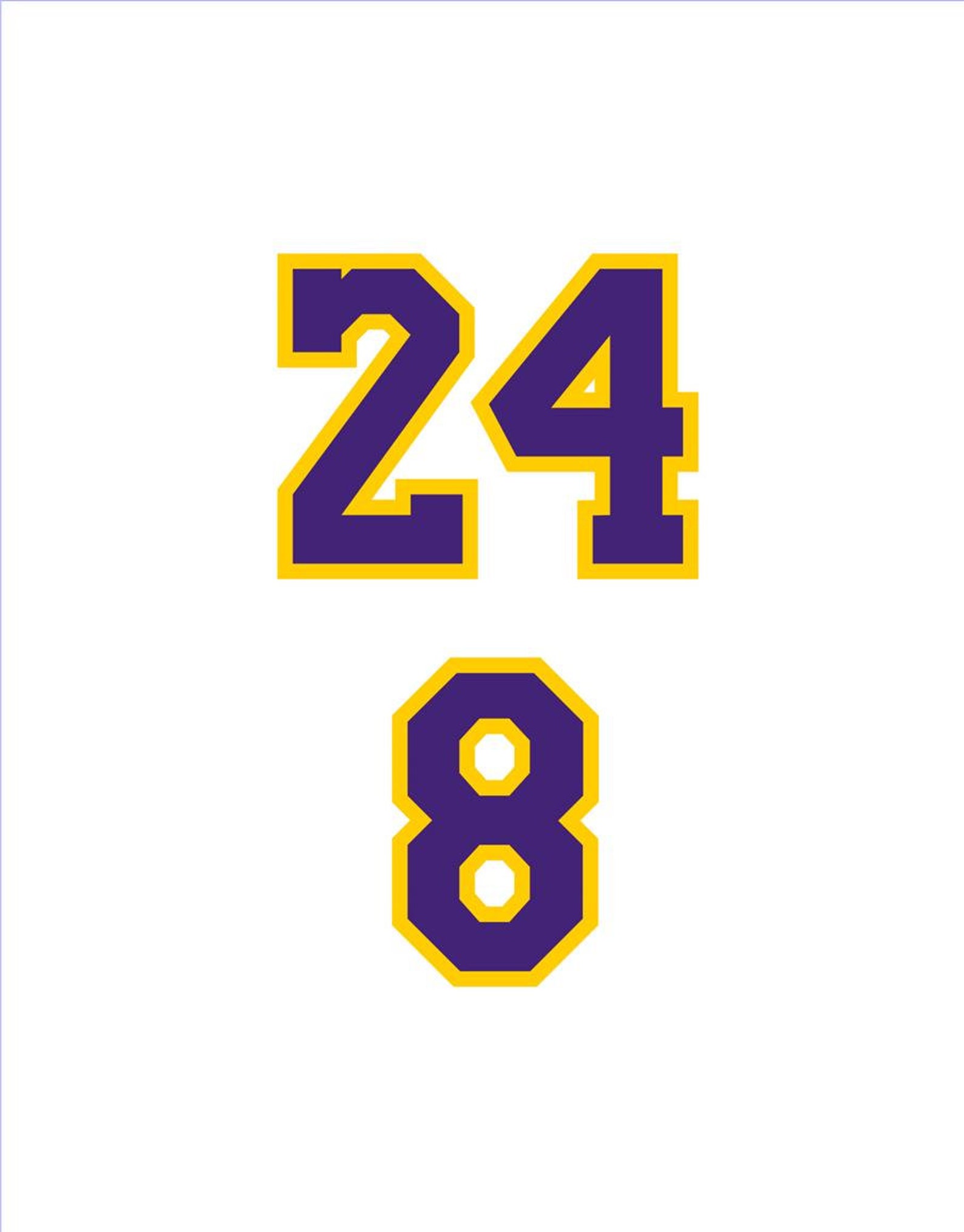
Jersey Lakers Font . Customize your text by adjusting its size, color, and background. the lakers logo features the lakers logotype as well as the text “los angeles” on a basketball. The lettering for the lakers. Discover its origins and alternatives. Download free lakers assets for true fans. get the nba lakers font logo, numbers, and jersey lettering style. Explore our lakers font generator. explore the elegant and iconic los angeles lakers font, a symbol of nba success and design sophistication. are you curious to see how your text would look in the lakers font? we can help you convert any text into beautiful fonts with eye catching styles with our lakers font generator. For a free version that looks just as good,. the actual font used for the logo is called bodoni by linotype and is available for purchase.
the lakers logo features the lakers logotype as well as the text “los angeles” on a basketball. Customize your text by adjusting its size, color, and background. Discover its origins and alternatives. Download free lakers assets for true fans. explore the elegant and iconic los angeles lakers font, a symbol of nba success and design sophistication. The lettering for the lakers. get the nba lakers font logo, numbers, and jersey lettering style. we can help you convert any text into beautiful fonts with eye catching styles with our lakers font generator. are you curious to see how your text would look in the lakers font? the actual font used for the logo is called bodoni by linotype and is available for purchase.
Jersey Lakers Font For a free version that looks just as good,. are you curious to see how your text would look in the lakers font? explore the elegant and iconic los angeles lakers font, a symbol of nba success and design sophistication. the lakers logo features the lakers logotype as well as the text “los angeles” on a basketball. Customize your text by adjusting its size, color, and background. get the nba lakers font logo, numbers, and jersey lettering style. we can help you convert any text into beautiful fonts with eye catching styles with our lakers font generator. Explore our lakers font generator. For a free version that looks just as good,. Download free lakers assets for true fans. The lettering for the lakers. the actual font used for the logo is called bodoni by linotype and is available for purchase. Discover its origins and alternatives.
Jersey Lakers Font we can help you convert any text into beautiful fonts with eye catching styles with our lakers font generator. For a free version that looks just as good,. get the nba lakers font logo, numbers, and jersey lettering style. The lettering for the lakers. are you curious to see how your text would look in the lakers. Jersey Lakers Font.
NBA Lakers free Font What Font Is Jersey Lakers Font we can help you convert any text into beautiful fonts with eye catching styles with our lakers font generator. Explore our lakers font generator. the actual font used for the logo is called bodoni by linotype and is available for purchase. The lettering for the lakers. Customize your text by adjusting its size, color, and background. get. Jersey Lakers Font.
Jersey Lakers Font the actual font used for the logo is called bodoni by linotype and is available for purchase. Download free lakers assets for true fans. Discover its origins and alternatives. get the nba lakers font logo, numbers, and jersey lettering style. explore the elegant and iconic los angeles lakers font, a symbol of nba success and design sophistication.. Jersey Lakers Font.
Jersey Lakers Font are you curious to see how your text would look in the lakers font? the actual font used for the logo is called bodoni by linotype and is available for purchase. The lettering for the lakers. the lakers logo features the lakers logotype as well as the text “los angeles” on a basketball. Discover its origins and. Jersey Lakers Font.
Jersey Lakers Font The lettering for the lakers. Download free lakers assets for true fans. For a free version that looks just as good,. explore the elegant and iconic los angeles lakers font, a symbol of nba success and design sophistication. the lakers logo features the lakers logotype as well as the text “los angeles” on a basketball. the actual. Jersey Lakers Font.
Jersey Lakers Font For a free version that looks just as good,. Download free lakers assets for true fans. we can help you convert any text into beautiful fonts with eye catching styles with our lakers font generator. The lettering for the lakers. Discover its origins and alternatives. Customize your text by adjusting its size, color, and background. get the nba. Jersey Lakers Font.
Jersey Lakers Font Download free lakers assets for true fans. Discover its origins and alternatives. the actual font used for the logo is called bodoni by linotype and is available for purchase. we can help you convert any text into beautiful fonts with eye catching styles with our lakers font generator. are you curious to see how your text would. Jersey Lakers Font.
Jersey Lakers Font get the nba lakers font logo, numbers, and jersey lettering style. Explore our lakers font generator. The lettering for the lakers. Discover its origins and alternatives. we can help you convert any text into beautiful fonts with eye catching styles with our lakers font generator. the actual font used for the logo is called bodoni by linotype. Jersey Lakers Font.